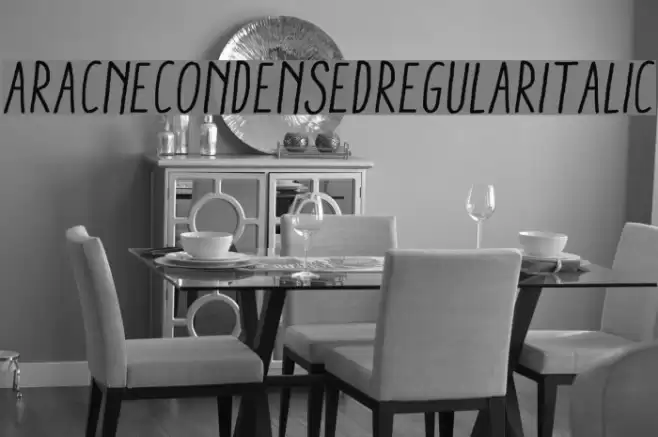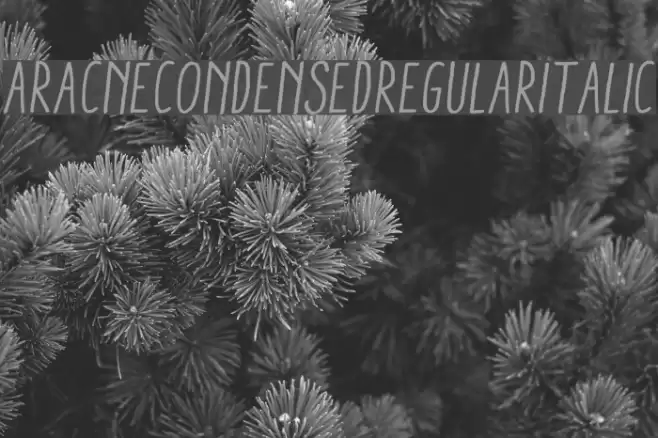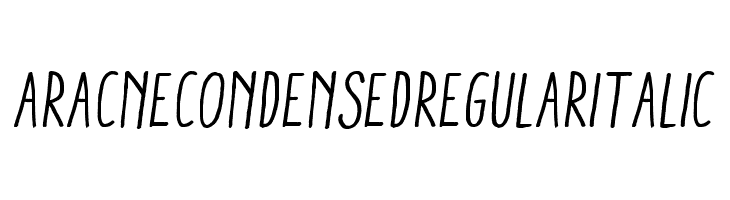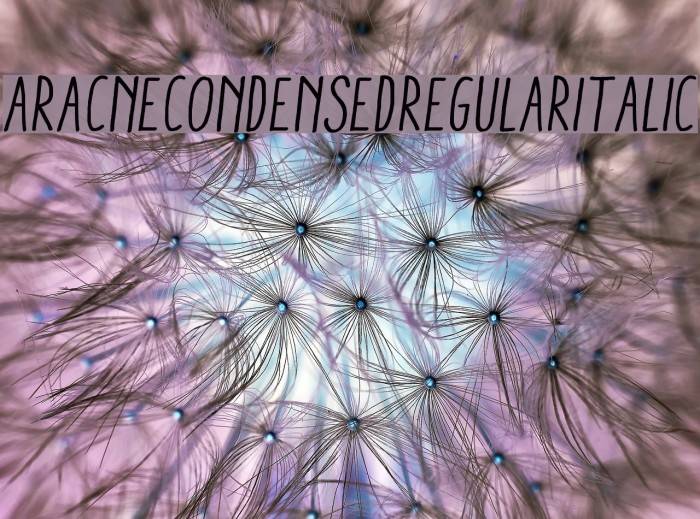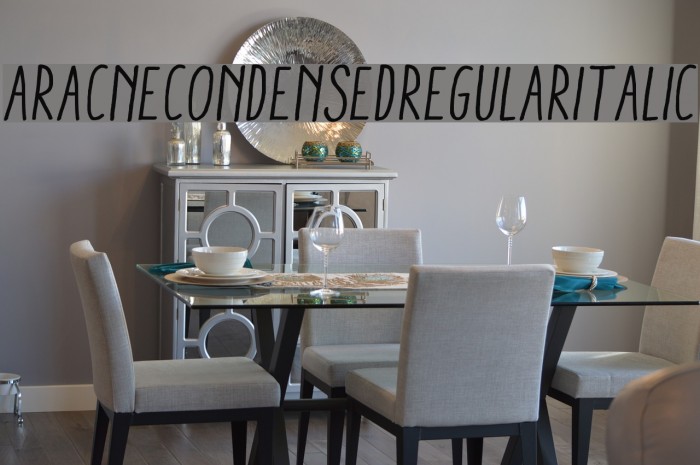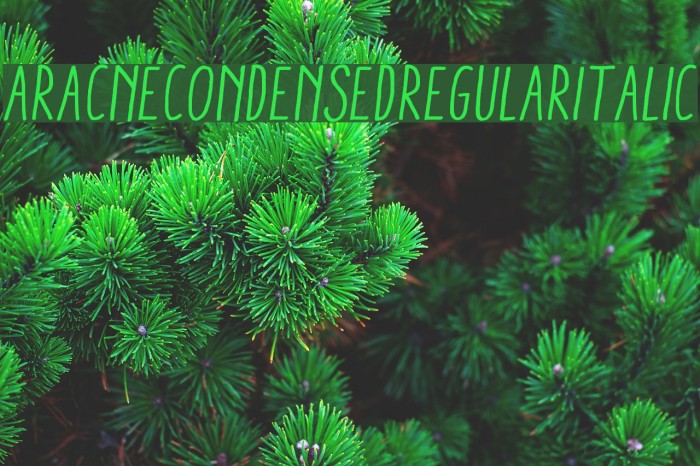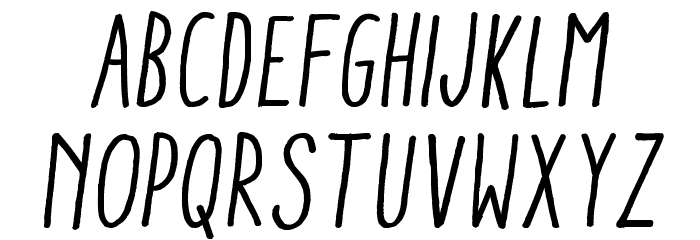
AracneCondensedRegularItalic Font
AracneCondensedRegularItalic Description
This font features a condensed and italicized style, characterized by its tall and narrow letterforms. The strokes are consistent in width, providing a uniform appearance across all characters. The design is clean and modern, with a slight slant that adds a dynamic feel. The uppercase and lowercase letters maintain a cohesive look, while the numerals and special characters are crafted to match the overall aesthetic. This font is suitable for projects that require a contemporary and sleek appearance, offering readability and style.
A modern, condensed italic font with uniform strokes and a dynamic slant from Uncategorized fonts.
- Proposed Projects: Ideal for branding, posters, and editorial design where a modern and sleek look is desired.